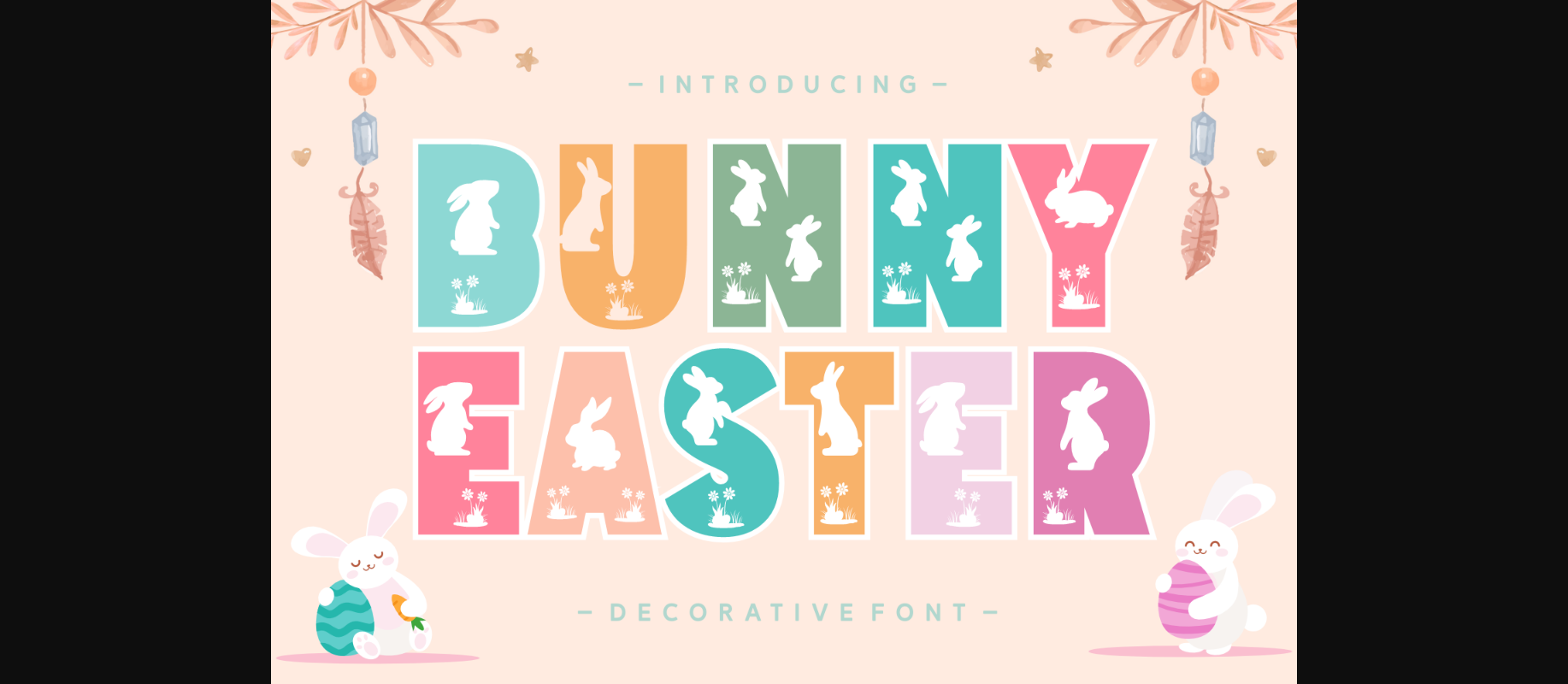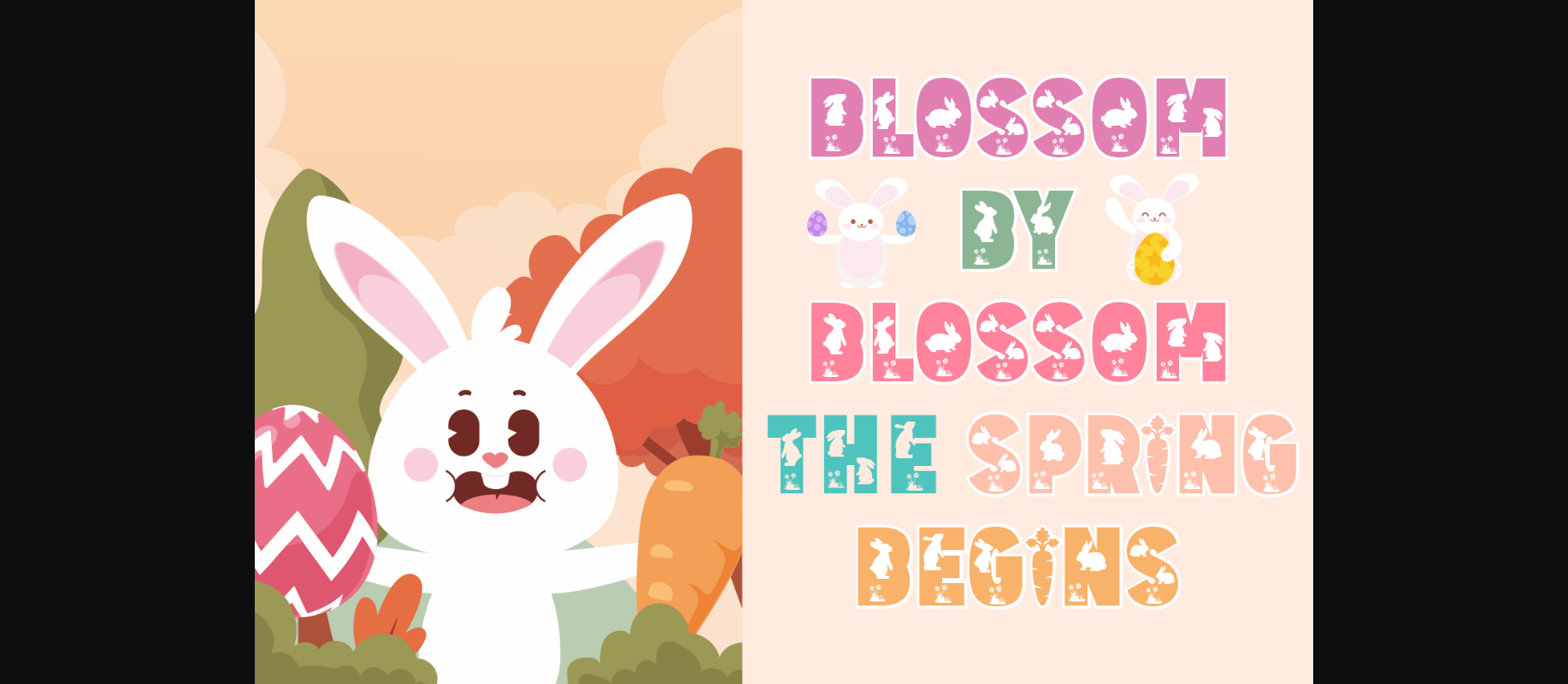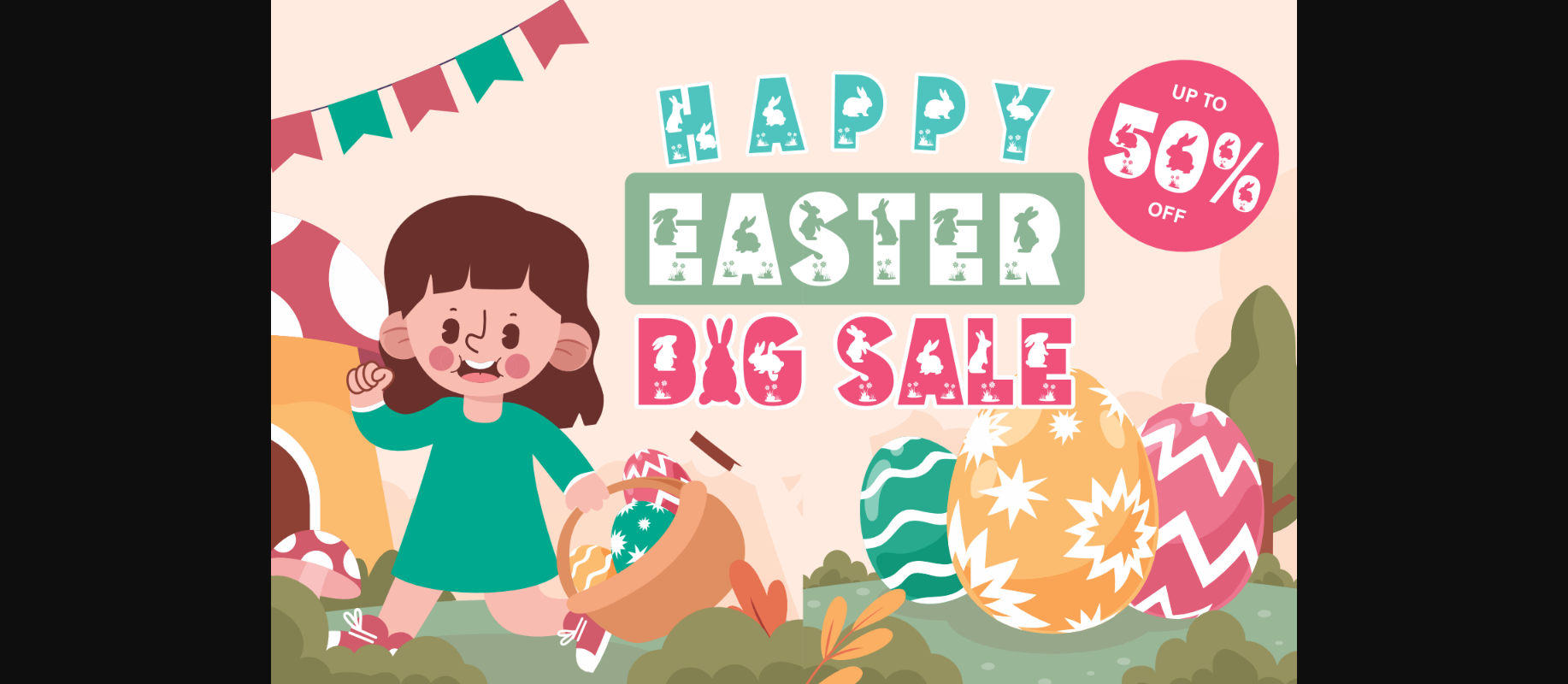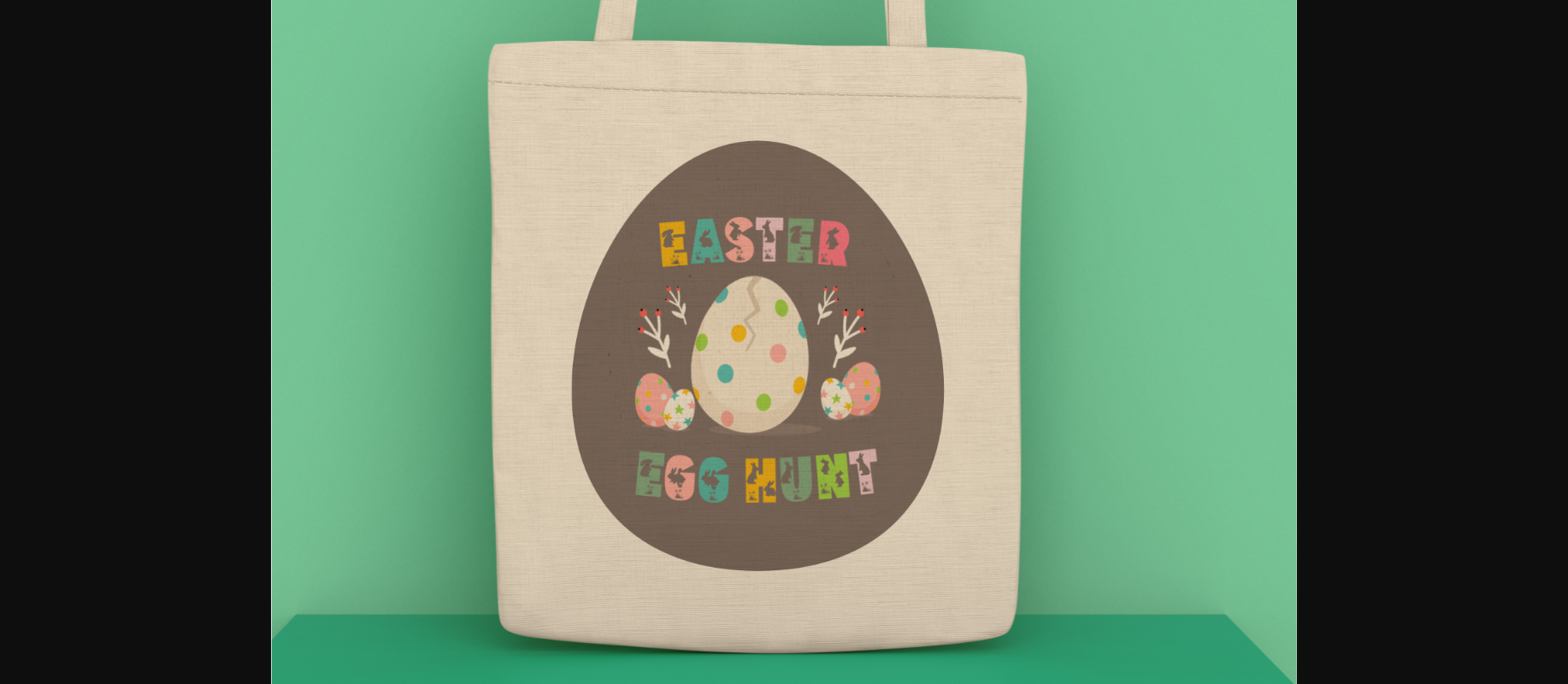
About Bunny Easter Font
Hop into the world of whimsy with this adorable decorative font featuring cute and tiny bunnies nestled inside each letter. Perfect for Easter-themed designs or simply adding a playful touch to any project, this font is sure to delight and charm.